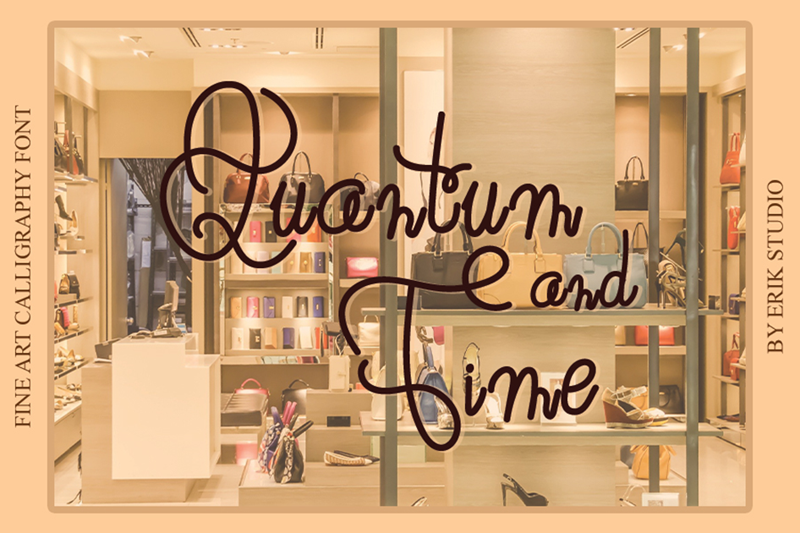
Preview and download Quantum And Time Font. Created by Erik Luluk in Script Handwritten styles with Free for personal use license.
Quantum and Time is a well balanced and delicate handwritten font. It is defined by beautiful curves and is perfect for fashion branding or editorial designs. Add it confidently to your projects, and you will love the results. Attention : Quantum and Time handwriting Font is prohibited to use this font for commercial purposes or for profit without the permission of the author/admin, without being known to use this font without permission, will be subject to sanctions 5x the specified price. This font is used only for demos (Demo license) If you want to use this font for commercial use please contact email: erikluluk0@gmail.com or click the link below: https://www.creativefabrica.com/product/quantum-and-time/ref/745146/ If you want to see more other fonts, please click:https://www.creativefabrica.com/designer/erik-studio/ref/745146/ Any donations are very appreciated. Paypal account for donation: https://paypal.me/erikstudio1 |